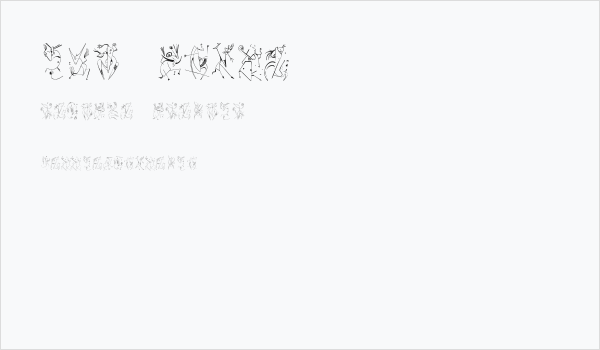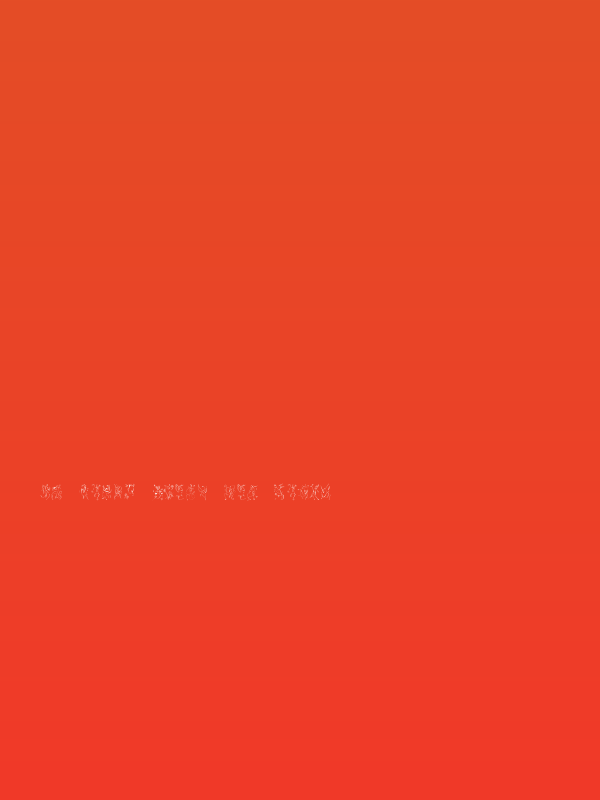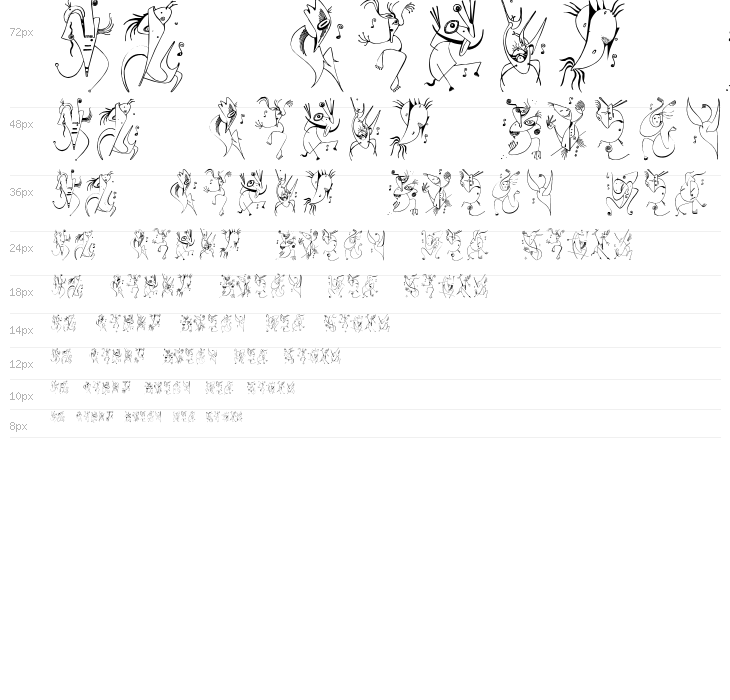
Z-Most Zimple Font
Z-Most Zimple Description
This font is a whimsical and artistic representation of the alphabet, where each character is creatively transformed into a unique, abstract figure. The design is highly decorative, with intricate details and playful elements that give each letter a distinct personality. The characters are composed of thin, flowing lines that intertwine and curve, creating a sense of movement and dynamism. This font is not intended for traditional text but rather as a visual art piece that captures attention and sparks imagination. The overall style is avant-garde and expressive, making it suitable for artistic and creative projects.
| Use Case | Artistic displays, creative branding, decorative elements. |
| Proposed Projects | Ideal for art projects, creative branding, unique posters, and decorative purposes. |